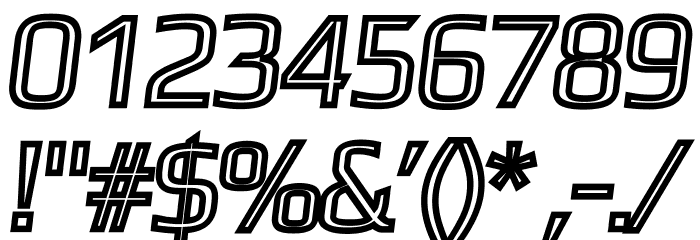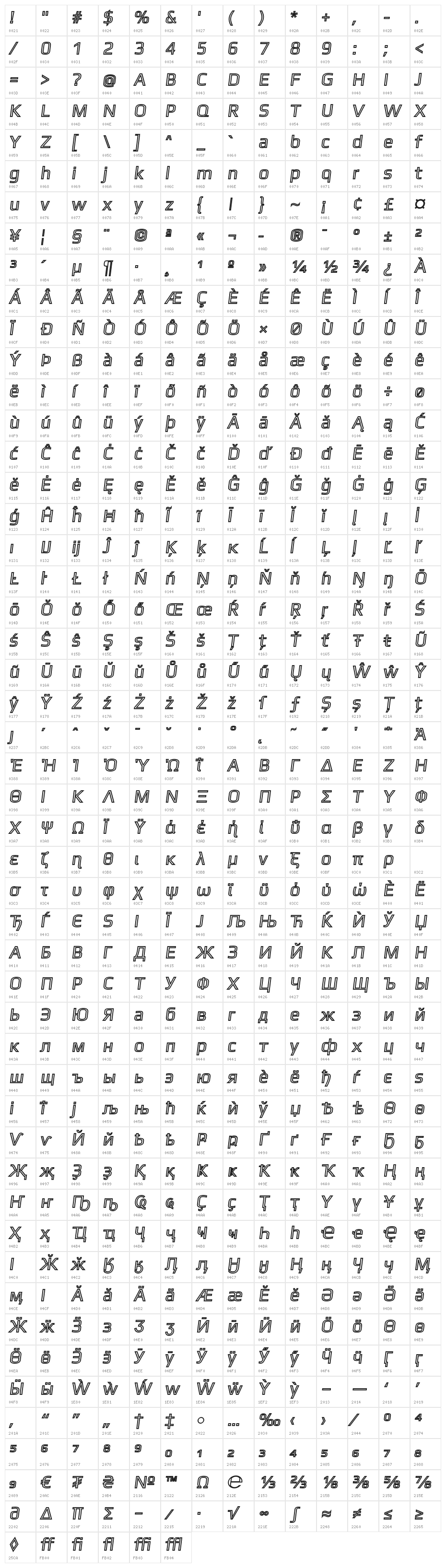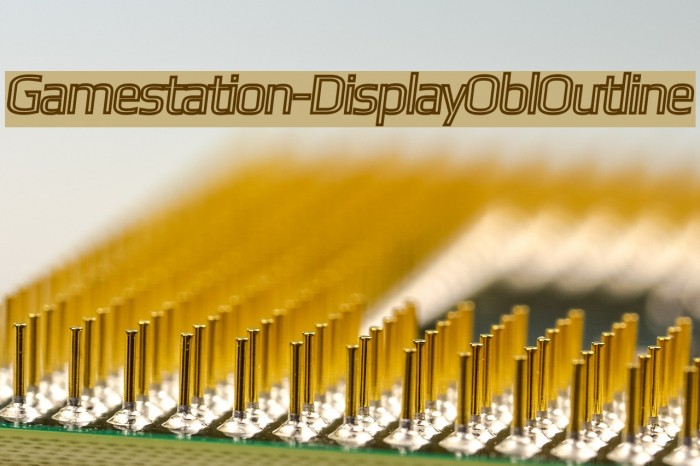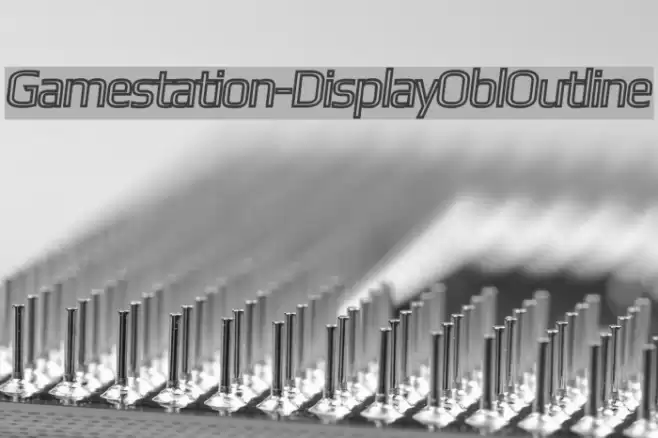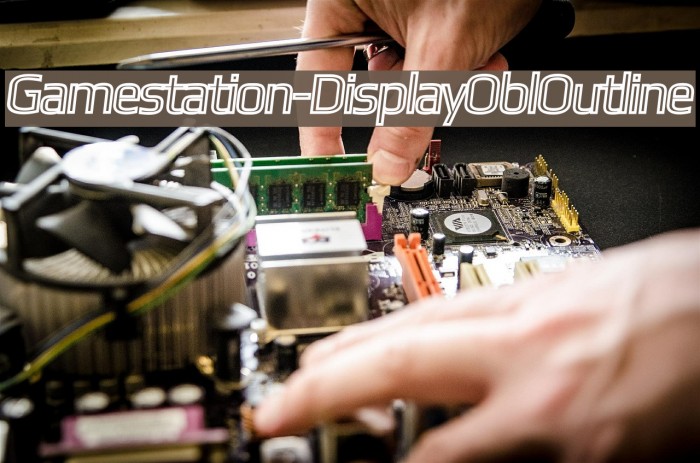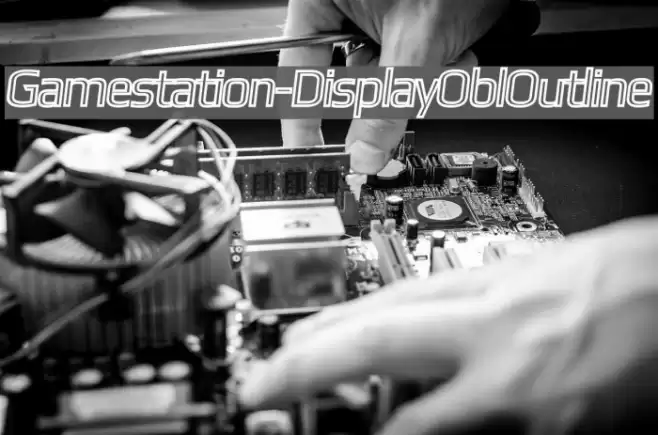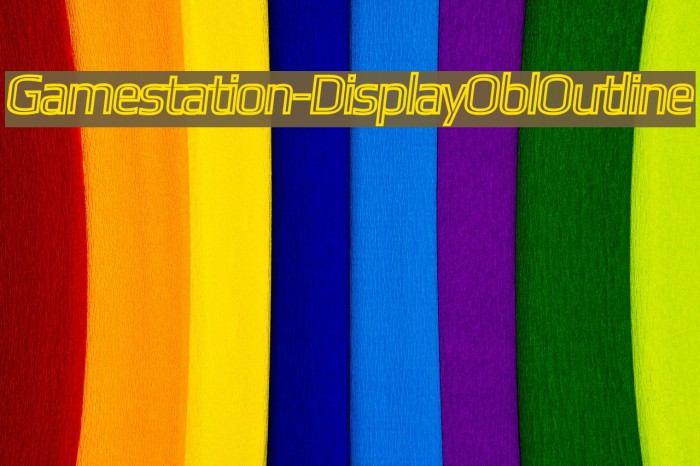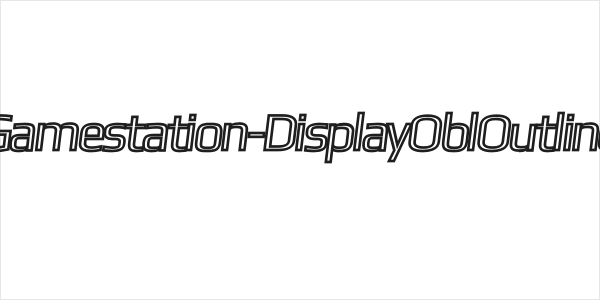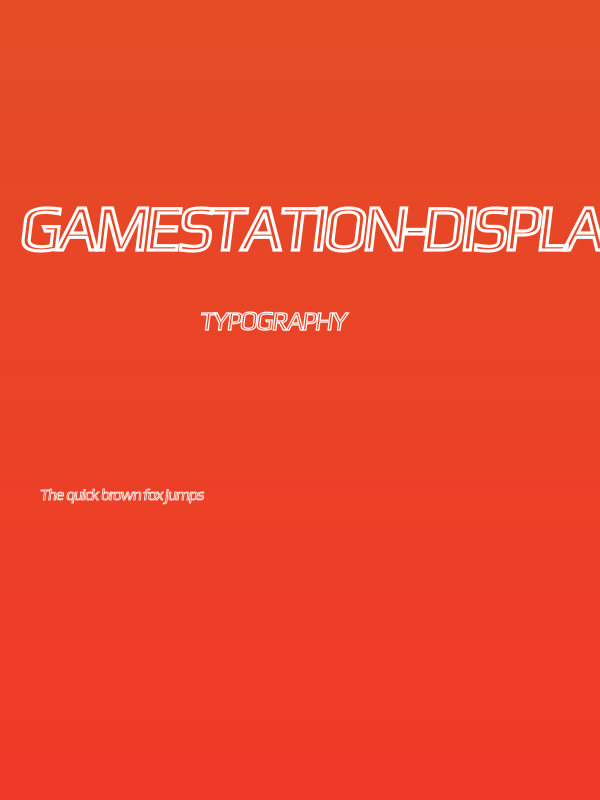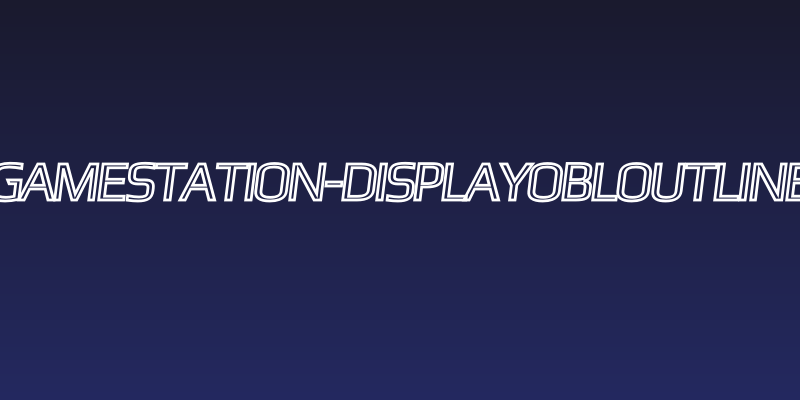
Gamestation-DisplayOblOutline Font
Gamestation-DisplayOblOutline Description
This font features a modern, futuristic design with an outlined style that gives it a distinctive, tech-inspired appearance. The characters are slightly condensed, with a consistent stroke width that maintains a clean and structured look. The uppercase and lowercase letters share a uniform height, enhancing readability while maintaining a sleek aesthetic. The numerals and special characters are designed to complement the alphabet, ensuring a cohesive visual experience. This font's outlined nature adds a layer of depth, making it ideal for projects that require a bold and eye-catching display.
| Proposed Projects | Ideal for video game titles, tech branding, digital interfaces, and futuristic-themed posters. |